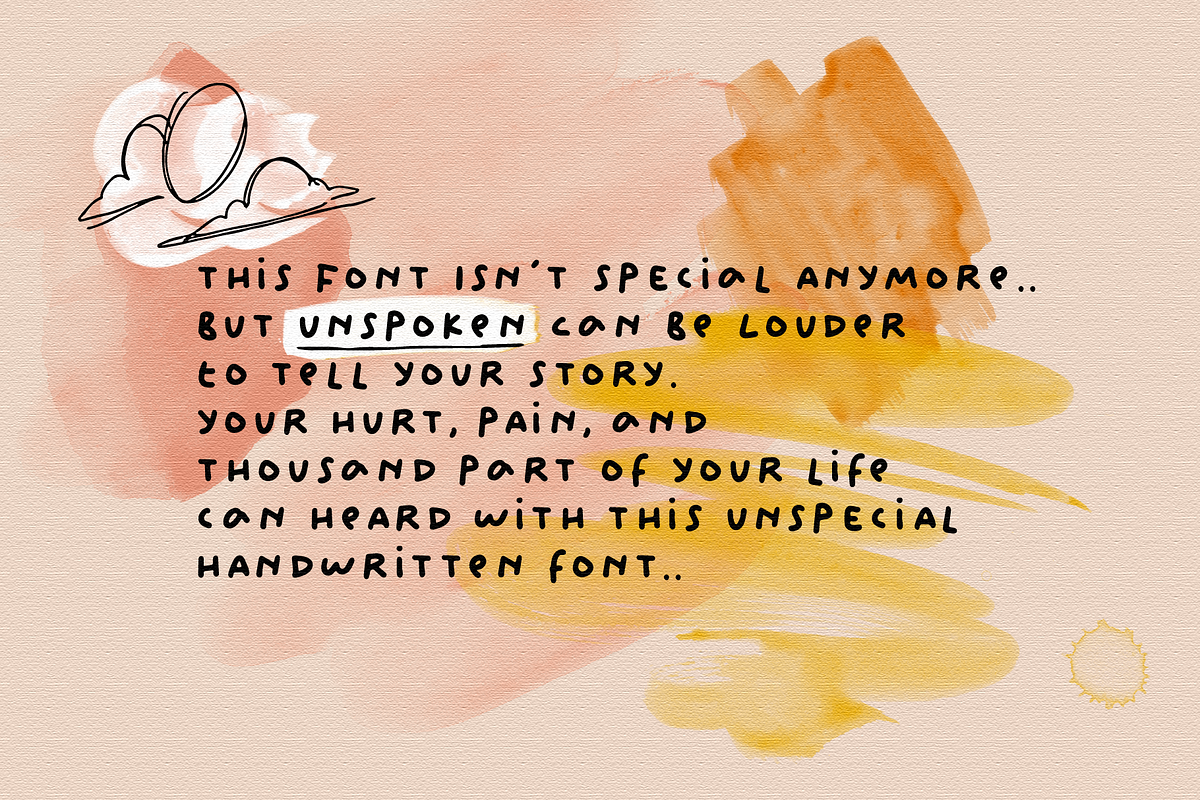
Please note, to use this font for commercial purposes, you must purchase the full version. Unspoken is a beautiful and elegant handwritten font that tells a story through its flowing, organic strokes. Perfect for personal projects, branding, invitations, and creative designs, this font adds a warm, authentic touch to your work. Whether you're designing a wedding invitation, a logo, or a heartfelt message, Unspoken brings a unique and personal flair to your projects. Test it out and enjoy free download access for personal use. Experience the beauty of Unspoken | Story Handwritten Font Free Download before purchasing the commercial license. Add a personal and expressive touch to your designs with Unspoken.